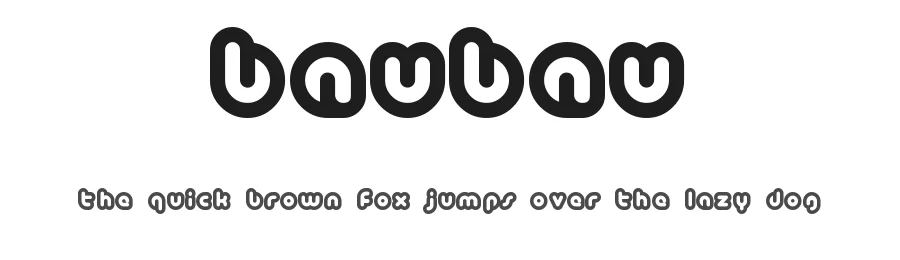
About RNS Baruta Black Font
RNS Baruta Black is a decorative font designed by RNS. It includes 298 glyphs, a regular weight, TTF (TrueType) format, and 222 languages. RNS Baruta Black is free to download; check the license details on this page before commercial use. Decorative fonts like RNS Baruta Black work best for logos, posters, packaging, and standout headlines.
RNS Baruta Black Font is a decorative font that shines as a display or heading face. Pair it with a clean sans-serif or serif font for body text β the contrast creates a clear hierarchy while the two styles stay balanced and easy to read.
RNS Baruta Black Font is a decorative typeface by RNS, ideal for logos, invitations, branding, and creative projects.